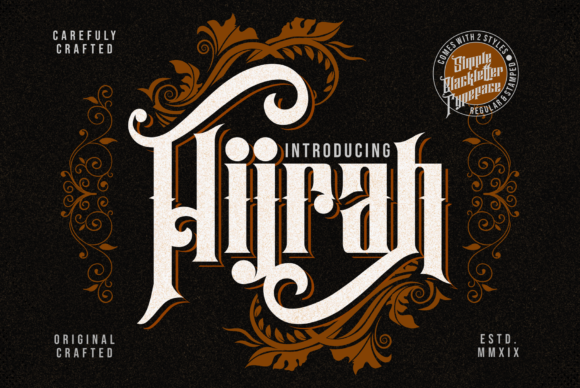
Enter the realm of ancient elegance with Hijrah Font, an awe-inspiring blackletter font that evokes the charm of bygone eras. Crafted with the utmost care by Omotu, this font exudes a timeless beauty that will add a touch of sophistication to your creative endeavors.
Immerse yourself in the intricate details of Hijrah Font, where each letter is a work of art. Its bold strokes and captivating curves create a striking visual impact that commands attention. Whether you're designing logos, posters, invitations, or any other project that demands a touch of distinction, Hijrah Font is your perfect companion.
Unleash your creativity and let Hijrah Font transport you to a world of enchantment. Its versatility knows no bounds, making it the ideal choice for a wide range of projects. From vintage-inspired designs to modern masterpieces, Hijrah Font seamlessly adapts to your vision, adding a touch of elegance and sophistication to every creation.
Indulge in the nostalgia of handwritten letters with Hijrah Font. Its blackletter style evokes the romance of days gone by, adding a touch of timeless charm to your designs. Whether you're creating wedding invitations, vintage posters, or any project that calls for a touch of history, Hijrah Font will effortlessly transport you to another era.
Hijrah Font is more than just a font; it's an experience. Its ability to effortlessly blend tradition and modernity makes it the perfect choice for designers who appreciate the beauty of the past while embracing the possibilities of the present. Elevate your designs to new heights and leave a lasting impression on your audience with Hijrah Font.
So, embark on a creative journey like no other with Hijrah Font. Let its timeless beauty and captivating charm inspire you to create designs that resonate with your audience. Download Hijrah Font today and unlock a world of endless possibilities.